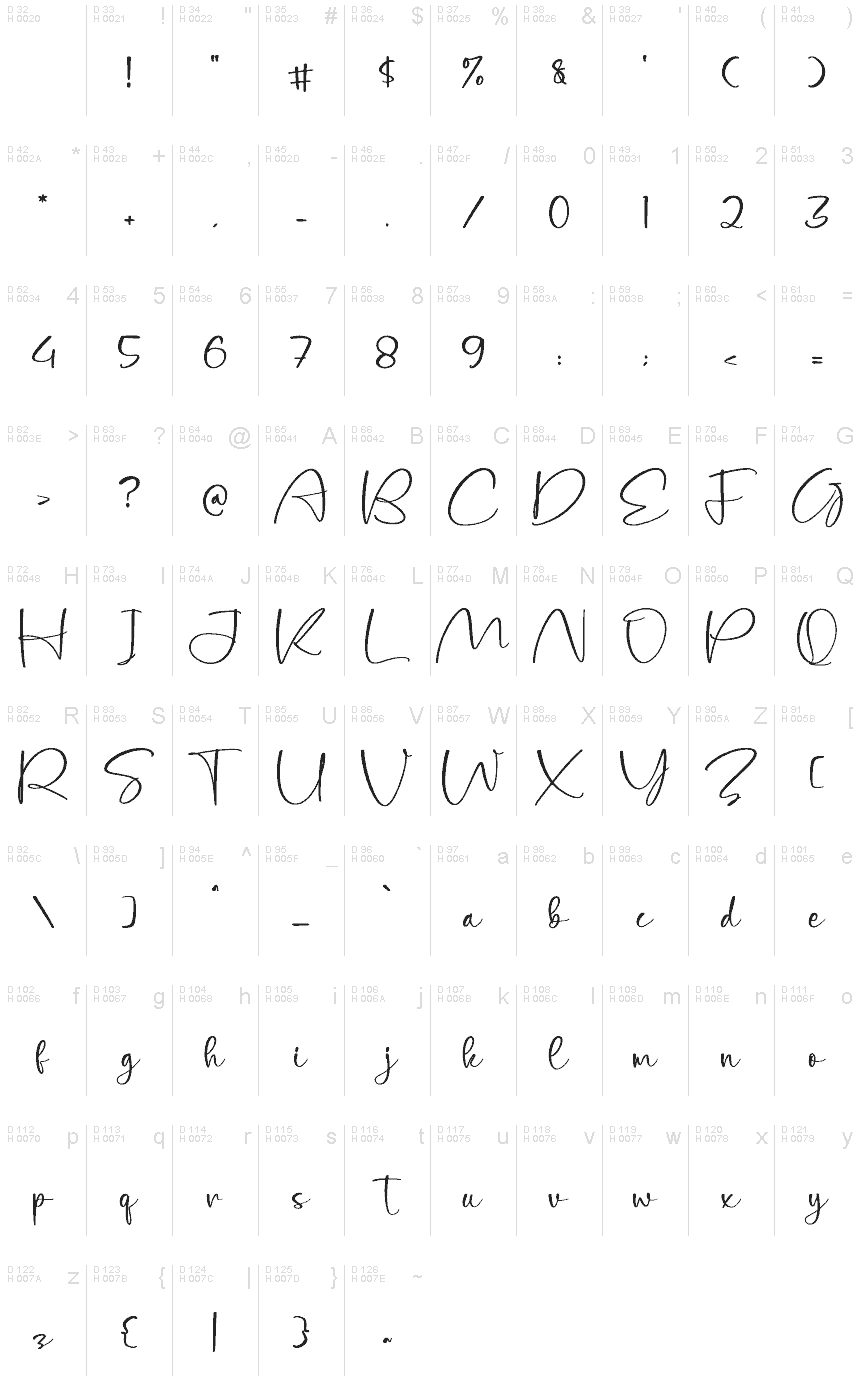
Gold Stamp
Gold Stamp font by Letterena Studios is a free handwritten font with refined and artistic qualities. Loosely formed and fluid letter shapes create a relaxed typing experience, which in turn makes for sophisticated headings as well as elegant body text letters. Though the font may look formless at certain instances, its elegant fine details will certainly make it the focal point.